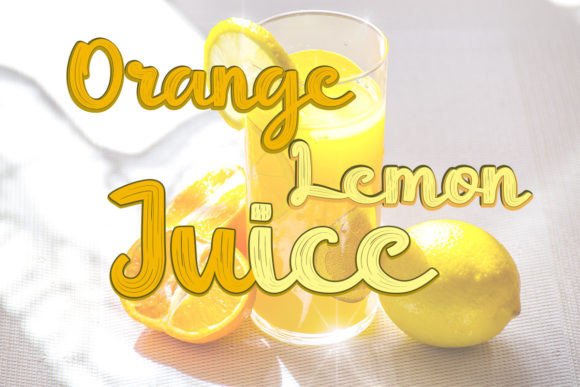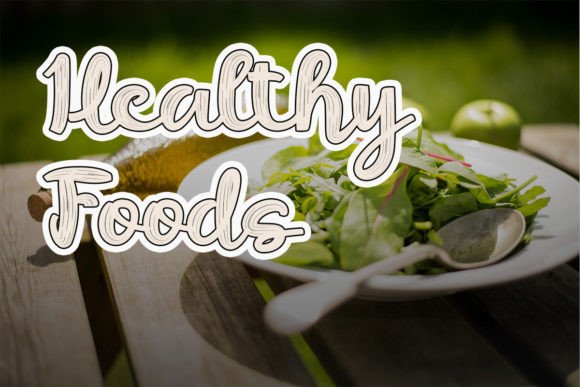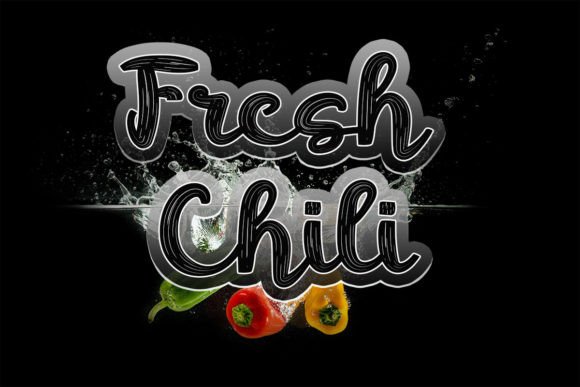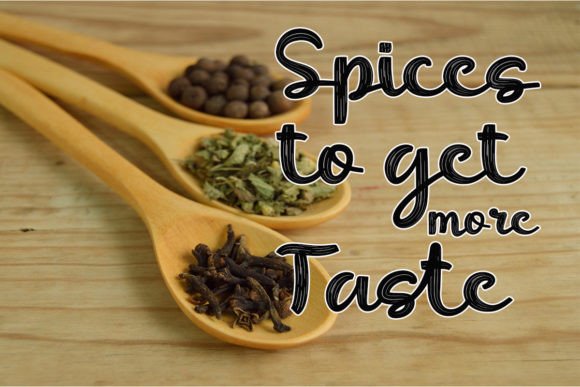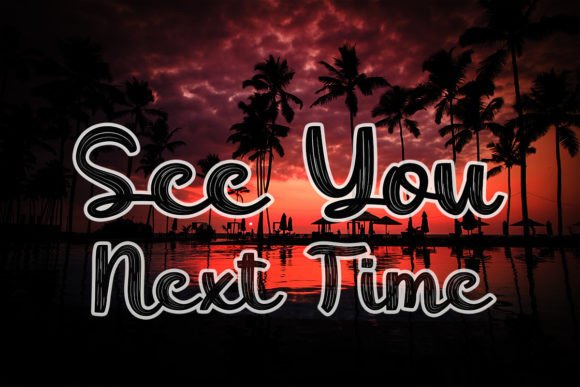
Coklat Font: The Perfect Handwritten Font for Your Creative Design Projects
Are you a designer, crafter, or DIY enthusiast looking for a font that can add a personal touch to your creative projects? Look no further than Coklat Font, a beautiful and cute handwritten font that’s perfect for a variety of design applications. In this article, we’ll explore the features and benefits of Coklat Font, and show you how to use it to turn your design ideas into standout creations.
What is Coklat Font?
Coklat Font is a carefully crafted handwritten font that’s designed to bring a touch of warmth and personality to your designs. With its delicate and cursive strokes, Coklat Font is ideal for creating beautiful and eye-catching designs that stand out from the crowd. Whether you’re working on a craft project, digital design, greeting card, or presentation, Coklat Font is the perfect choice.
Key Features of Coklat Font
- Cute and Beautiful: Coklat Font features a unique and adorable design that’s sure to capture the hearts of your audience.
- Handwritten Style: With its natural and flowing strokes, Coklat Font gives your designs a personal and human touch.
- Versatile: Coklat Font is suitable for a wide range of design applications, including crafts, digital design, greeting cards, presentations, and more.
Benefits of Using Coklat Font
So why choose Coklat Font for your design projects? Here are just a few benefits of using this amazing font:
- Adds a Personal Touch: Coklat Font gives your designs a unique and personal touch that sets them apart from the competition.
- Increases Engagement: The cute and beautiful design of Coklat Font is sure to capture the attention of your audience and keep them engaged.
- Enhances Creativity: With Coklat Font, you can create stunning designs that showcase your creativity and skill.
- Perfect for Branding: Coklat Font is ideal for creating brand identities that are friendly, approachable, and memorable.
Inspiration for Your Coklat Font Designs
Need some inspiration for your Coklat Font designs? Here are a few ideas to get you started:
- Greeting Cards: Create beautiful and personalized greeting cards for special occasions.
- Digital Art: Use Coklat Font to add a touch of elegance and sophistication to your digital art.
- Crafts: Add a personal touch to your craft projects, such as scrapbooking, journaling, and paper crafting.
- Branding: Create a memorable brand identity with Coklat Font that’s friendly, approachable, and unique.